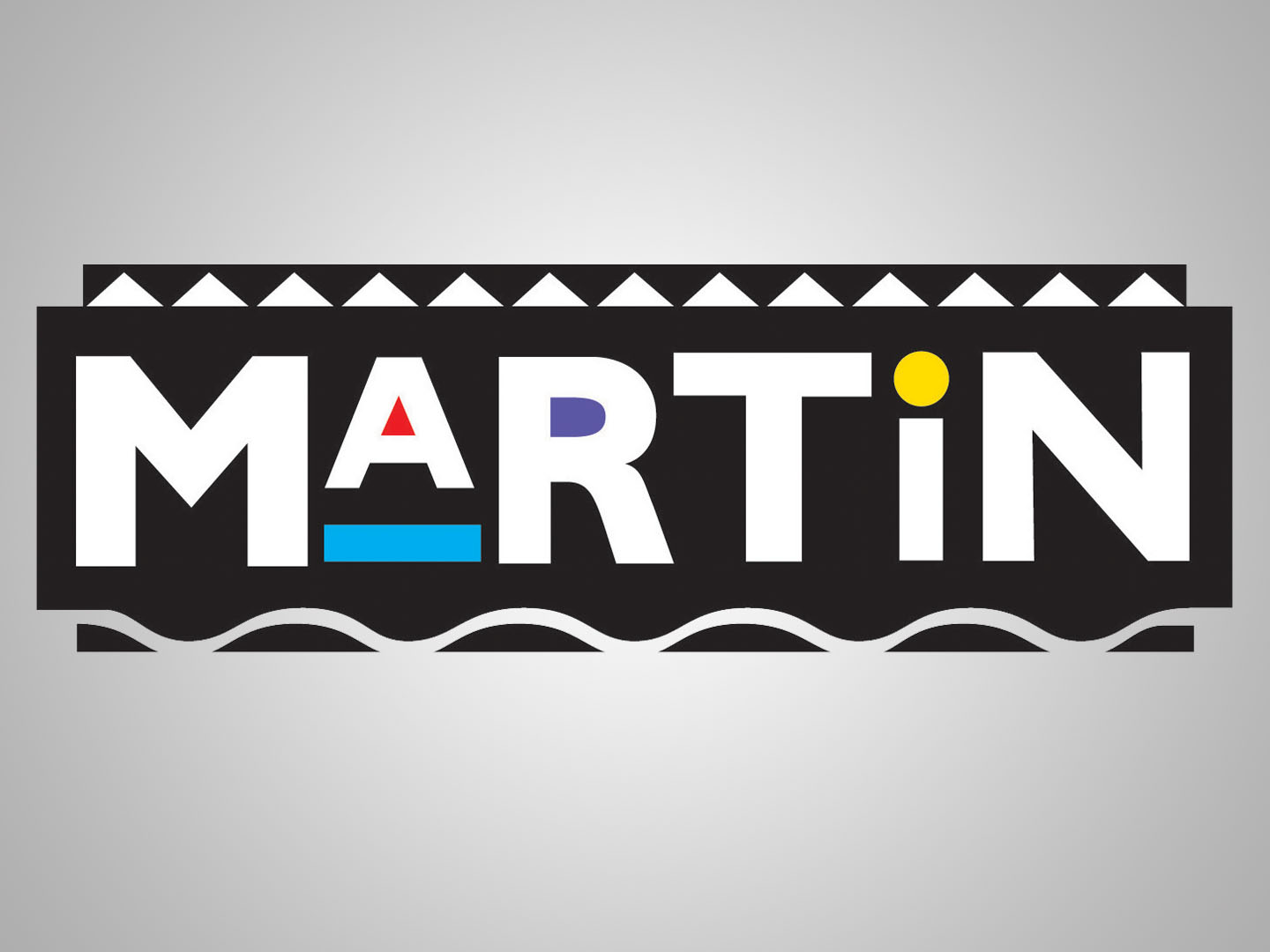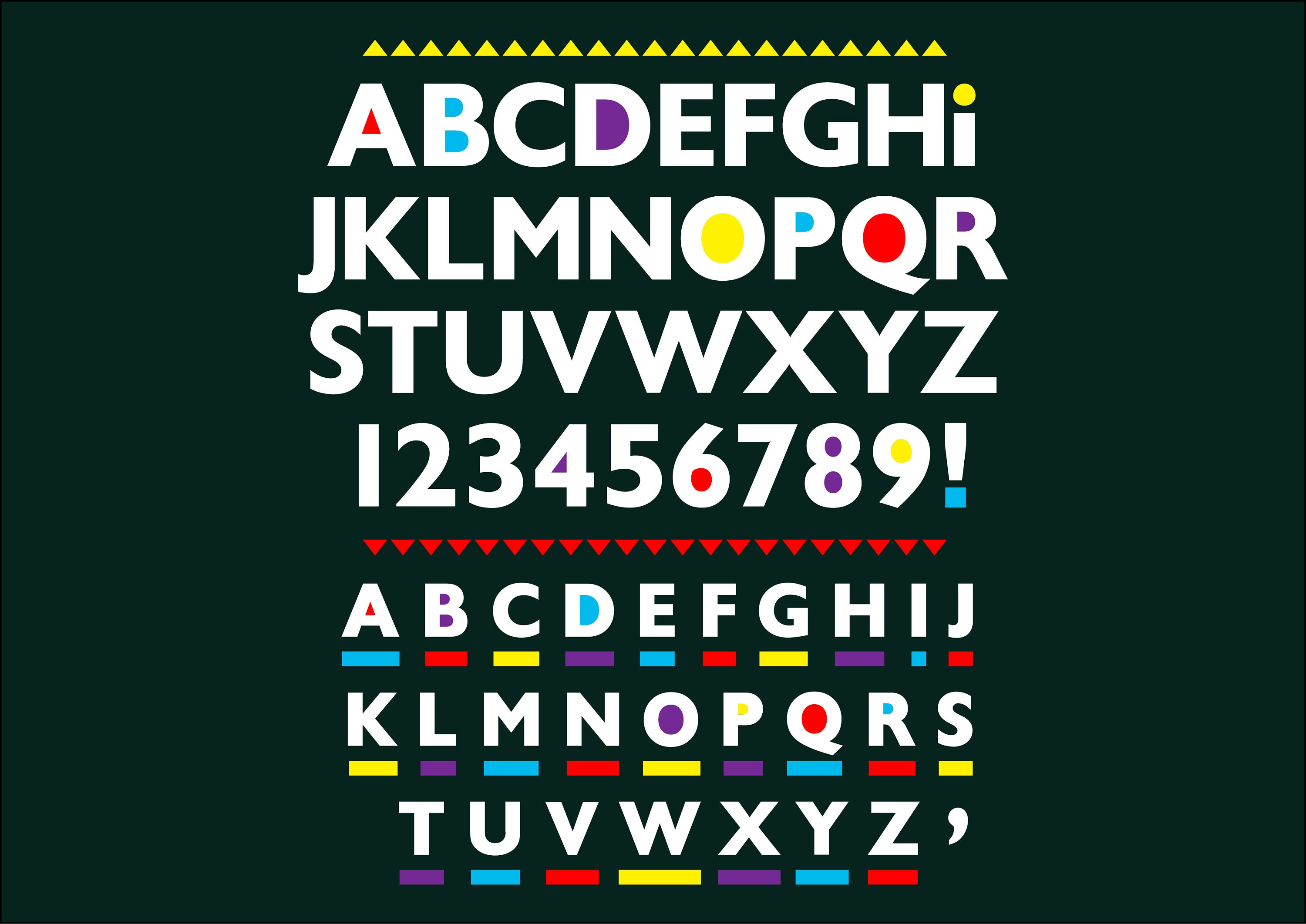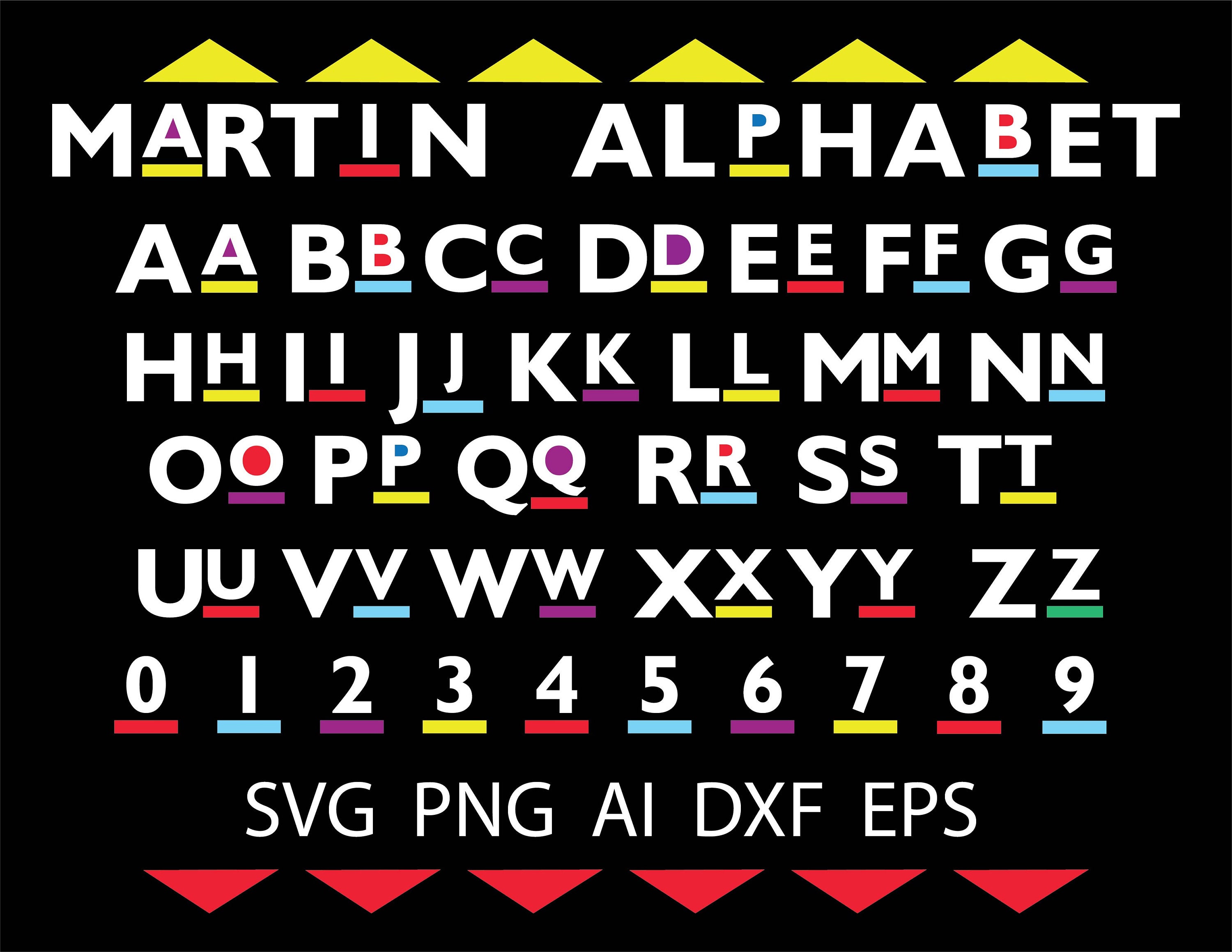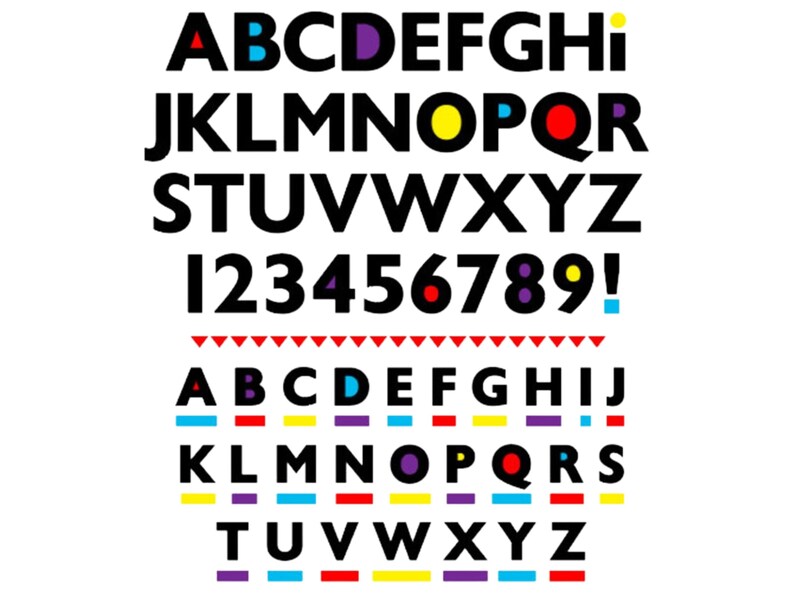
Martin Tv Show Font Generator - ️ this font has been downloaded 3,000+ times. It’s named after the martin tv show in the 90’s, but it’s also a very popular typography used in reference to black 90s culture. Download martin font from fontsherlock. Browse by alphabetical listing, by style, by author or by popularity. Archive of freely downloadable fonts. The font used for the logo of the tv show is. Explore thousands of fonts, tv series fonts and typefaces. Download and install the martin font for free from ffonts.net.
Martin TV Show Font